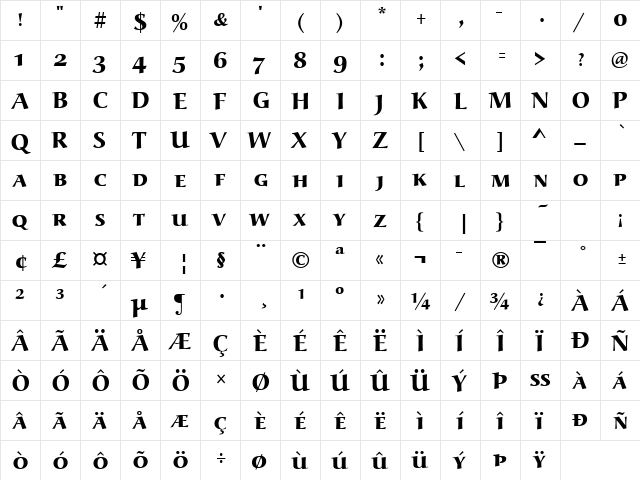
Alcuin Becker Caps Ext Bold Regular
Design Context for Alcuin Becker Caps Ext Bold Typeface
Alcuin Becker Caps Ext Bold is a composed and adaptable typeface that performs quietly and consistently across a wide range of design contexts. Its bold stroke weight gives it real presence on the page.